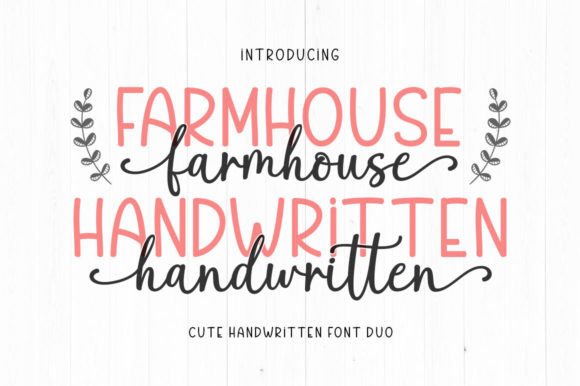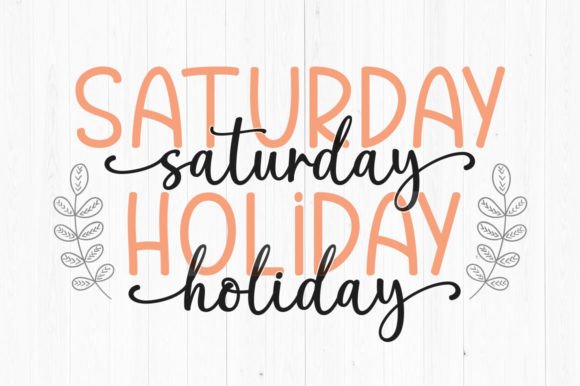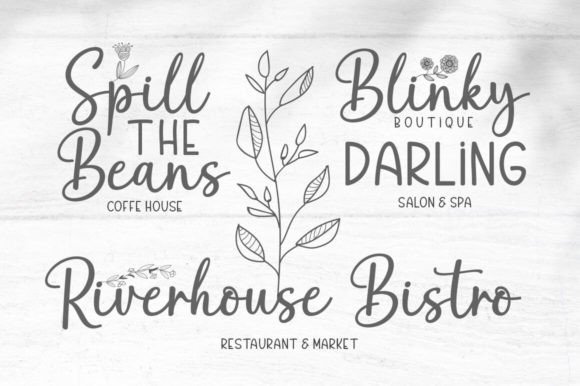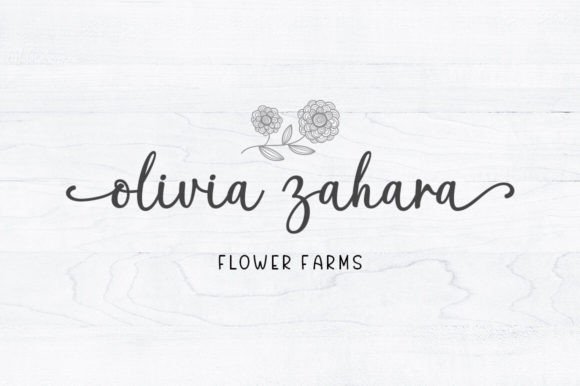
Farmhouse Handwritten Font
About the Farmhouse Handwritten Font
Unleash your creativity with Farmhouse Handwritten Font, a versatile font perfect for a wide range of applications. Farmhouse Handwritten Font Duo A smooth, charming, perfectly paired font duo, that’s ideal for quotes, social media, branding, packaging, overlays and more! Use this elegant combo on everything from logo design to Instagram quotes.
This font duo excels in branding applications requiring a touch of rustic charm, particularly for logos, packaging, and short-form marketing materials like social media posts and website headers. Its handcrafted feel works well for projects emphasizing artisanal products, cafes, or home-style businesses. Avoid using it for large blocks of body text or UI elements; the informal style is less legible at smaller sizes and in continuous reading.
Pair Farmhouse Handwritten with a clean sans-serif like Montserrat for a balanced contrast, or a more geometric sans-serif like Futura for a modern twist. For a warmer feel, a classic serif like Garamond or a slightly more informal serif like Playfair Display would complement its handwritten nature. Consider pairing it with a delicate script font for layered text effects in logos or invitations, but ensure sufficient contrast for readability.
The overall personality is friendly, approachable, and slightly nostalgic; conveying a sense of warmth and handcrafted quality. It’s best suited for brands aiming for a rustic, vintage, or homely aesthetic.
Farmhouse Handwritten Font Usage Examples
Farmhouse Handwritten Font Example